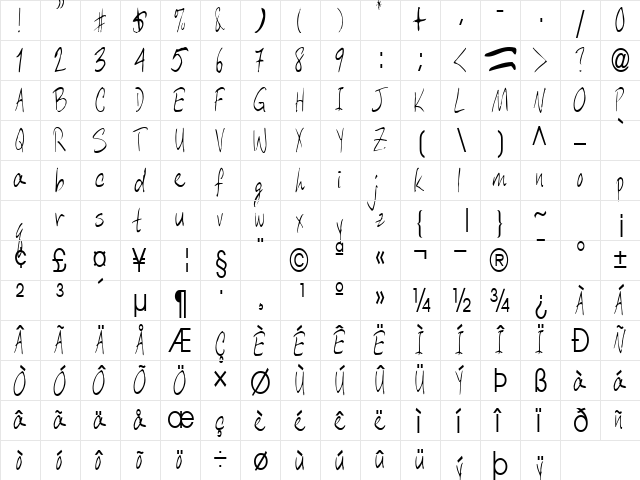
Abera Regular
Design Context for Abera Typeface
Abera is a composed and adaptable typeface that performs quietly and consistently across a wide range of design contexts.